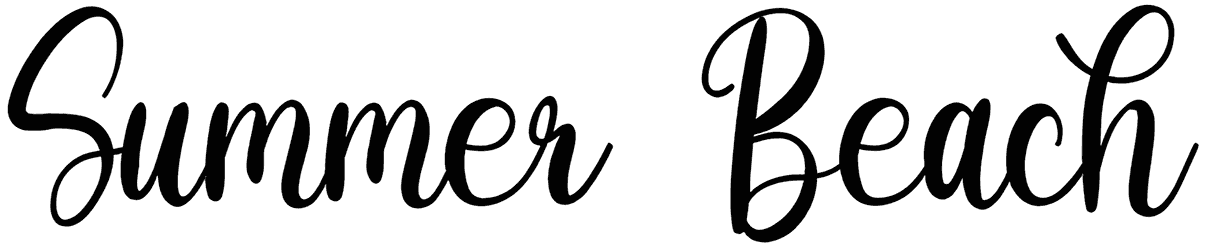
Summer Beach Font
With twisted letters and a chic face, this summer font will attract your viewers. Summer Beach, with its delicate and beautiful mood, is an apt choice for modern or classic designs. For your creative designs, such as magazines, business cards, social media posts, or the like, Summer Beach will be a fantastic display.